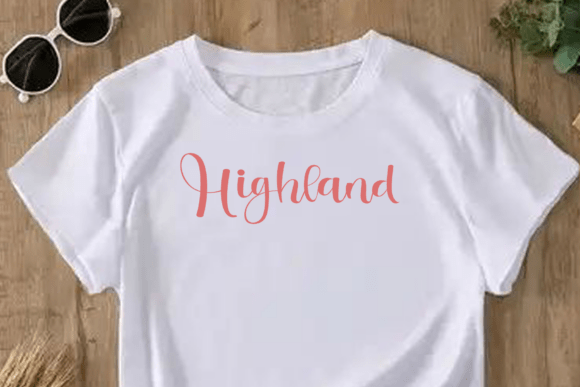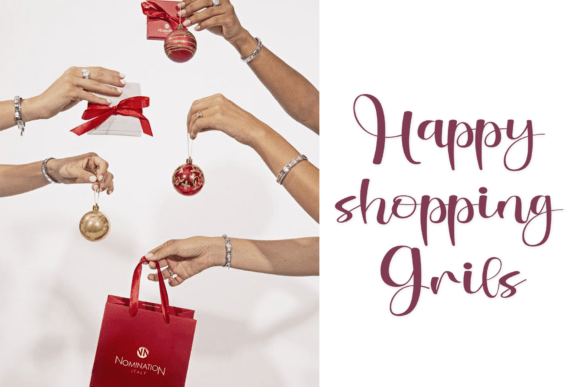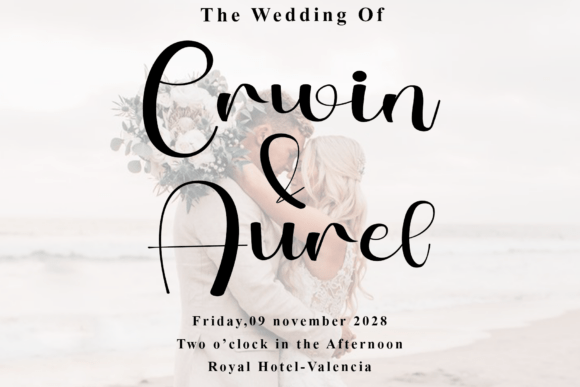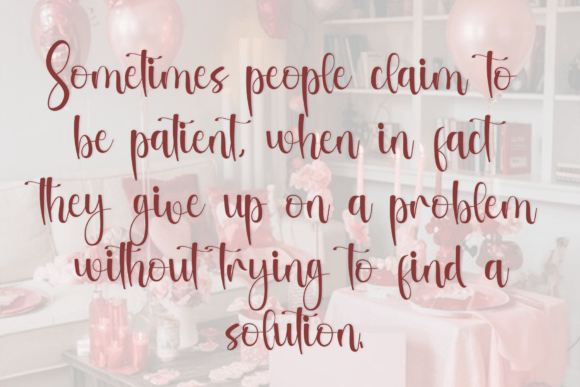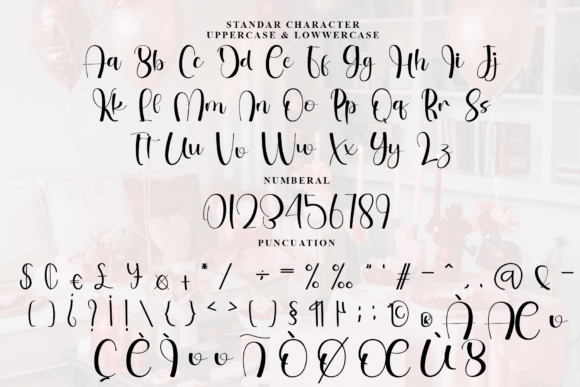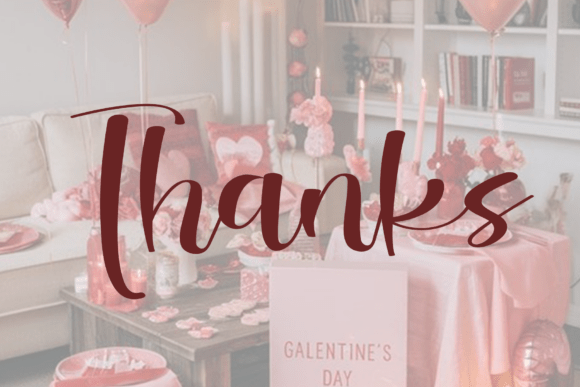
Introducing Happy Valentine Font: Elevate Your Design with Sophistication and Elegance
Are you searching for a font that exudes a unique and professional visual voice, perfect for autumnal designs? Look no further than Happy Valentine Font. This stunning script font is part of a modern handwritten collection, designed to bring a touch of sophistication and rhythm to your creative projects. With its high-contrast strokes, thick downstrokes, and delicate hairline connectors, Happy Valentine Font is ideal for designers and crafters seeking to add a touch of elegance to their work.
Characteristics of Happy Valentine Font
Happy Valentine Font boasts a range of distinctive features that set it apart from other fonts. Its vertically elongated letterforms and graceful, looping ascenders evoke the feeling of high-end inkwork, making it perfect for designs that require a touch of luxury. The font’s thick, grounded downstrokes provide a sense of stability, while the delicate hairline connectors add a touch of whimsy and playfulness.
Perfect for Autumn Marketing and Design Projects
As a seasonal font, Happy Valentine Font is specifically designed to capture the essence of autumn. Its warm, rich tones and elegant letterforms make it perfect for a range of design projects, including:
- Autumn marketing campaigns: Add a touch of sophistication to your seasonal advertising with Happy Valentine Font.
- Artisanal food packaging: Elevate your brand with elegant, high-end packaging that showcases your products in style.
- Boutique event invitations: Create beautiful, eye-catching invitations that set the tone for a sophisticated and memorable event.
- Sophisticated editorial headers: Add a touch of elegance to your editorial designs with Happy Valentine Font’s refined letterforms.
Why Choose Happy Valentine Font?
With Happy Valentine Font, you can:
- Add a touch of sophistication and elegance to your designs.
- Create unique and professional-looking designs that stand out from the crowd.
- Enhance your brand’s visual identity with a distinctive and refined font.
- Save time and effort with a font that is easy to use and versatile.
Tips for Using Happy Valentine Font
To get the most out of Happy Valentine Font, try the following tips:
- Use Happy Valentine Font as a headline font to add a touch of elegance to your designs.
- Pair Happy Valentine Font with a simpler font for body text to create visual interest.
- Experiment with different colors and textures to add depth and dimension to your designs.
- Use Happy Valentine Font to create beautiful, hand-crafted designs that showcase your creativity.
Happy Valentine Font is a sophisticated and rhythmic script font that is perfect for designers and crafters seeking to add a touch of elegance and sophistication to their work. With its high-contrast strokes, thick downstrokes, and delicate hairline connectors, this font is ideal for a range of design projects, from autumn marketing campaigns to artisanal food packaging. Whether you’re looking to create unique and professional-looking designs or simply want to elevate your brand’s visual identity, Happy Valentine Font is a premier asset that is sure to impress.